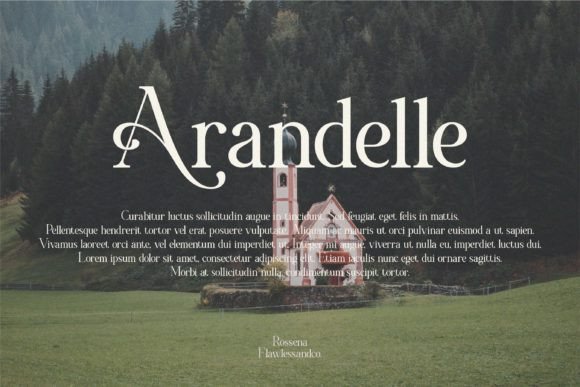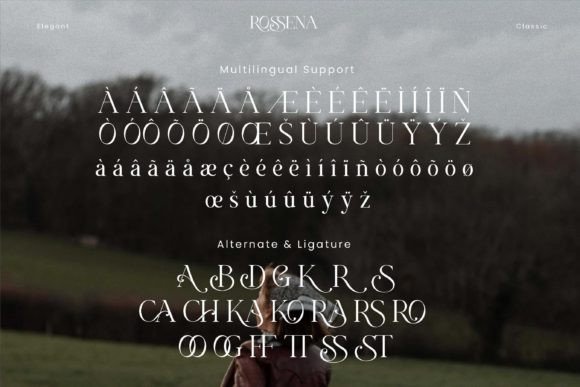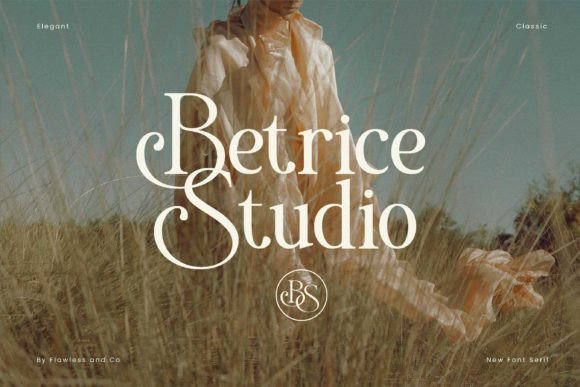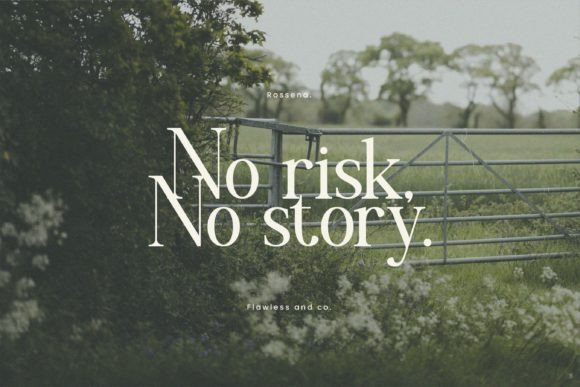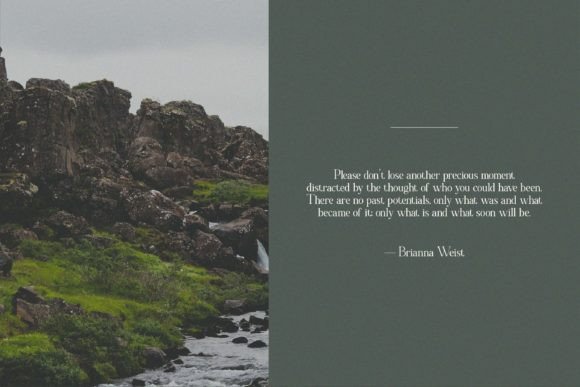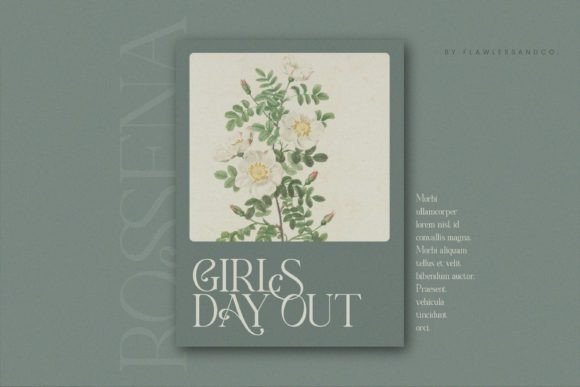
Introduction to Rossena Font
Have you ever stared at a blank canvas, feeling like the perfect design is just out of reach? That’s exactly where I found myself when I discovered the Rossena Font. Its unique blend of modern and retro elements sparked a creative fire that I just couldn’t ignore.
As designers, we’re always on the lookout for that special something to elevate our projects. Whether it’s a free download or a high-quality design resource, the right font can make all the difference. That’s where Rossena Font comes in – a stylish serif font that’s perfect for creating a classic and contemporary feel in your creative projects.
With its PUA-encoded characters and transparent background, Rossena Font is a valuable asset for any designer looking to add a touch of sophistication to their designs. From logos to branding materials, this font is sure to impress.
Key Features of Rossena Font
- High-quality, professional design for creative projects
- Comes in a range of sizes, including bold and regular weights
- Perfect for use in logos, branding, and other creative applications
Honest Review: Rossena Font
I recently had the chance to experiment with the Rossena Font, and I must say it’s a lovely addition to any creative project. The first thing that caught my attention was its unique design style, perfect for projects that require a touch of elegance and sophistication.
Here are some of the things that work well with Rossena Font:
- ✨ Unique and modern design style
- ✨ High-quality font that’s perfect for print or digital use
- ⚠️ Limited font styles and weights available
- ⚠️ Not suitable for projects that require bold or dramatic font styles
Overall, I’m impressed with Rossena Font as a design resource. While it may not be the most versatile font, its unique style and high-quality design make it a great choice for creative projects that require a touch of sophistication. With its free download option, it’s definitely worth trying out.
Rossena Font
Rossena Font is a versatile and elegant design resource perfect for creative projects. With a transparent background, this font can be easily integrated into various design platforms.
Rossena Font is suitable for a variety of design projects, including:
– Branding and logo design
– Brochures and flyers